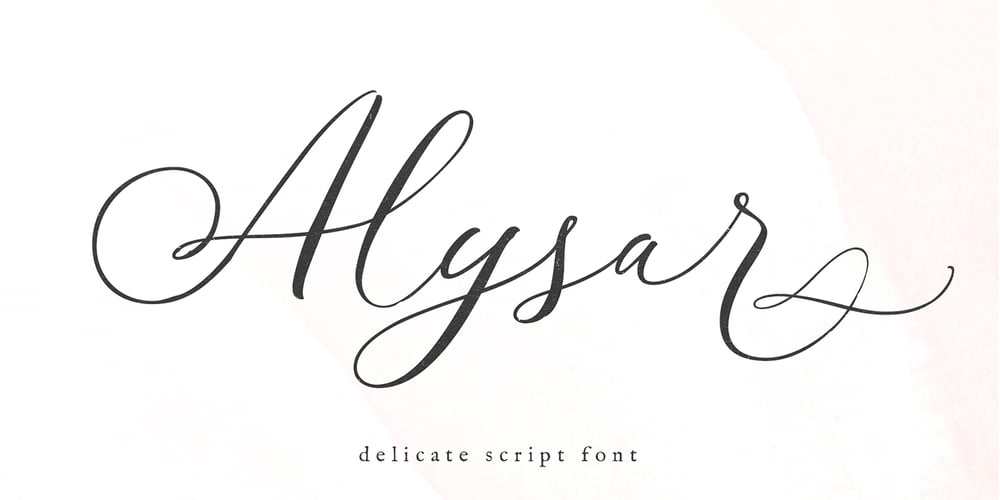
Alysar Font Family was designed by Kaitlynn Albani and published by KA Designs. Alysar contains 1 styles and family package options. Alysar is a delicate + modern handwritten font.Some letters are rigid, some strokes are “scratchy” – and that is the beauty of this font. This font is intended to look authentic – as if it just left your nib.This font is perfect for your wedding invitations, announcements and decor, branding, logos, quotes, labels, signs and more!This font includes alternate letters with swashes embedded into the font file for all lowercase letters – beginning and ending. These letters are easily accessible through Photoshop and IllustratorSimply highlight any lowercase letter and choose one of the alternates available or access all alternates through the glyphs panel.Thank you so much for your interest!